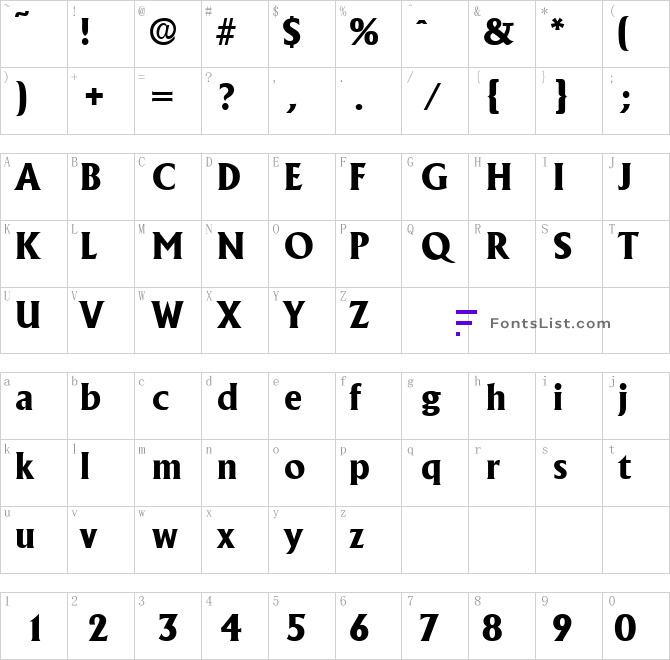
- Font Name:Adelon-Serial-ExtraBold
- Full Name:Adelon-Serial-ExtraBold-Regular
- Weight:900
Adelon-Serial-ExtraBold-Regular.ttf is a very beautiful artistic font, Adelon-Serial-ExtraBold-Regular.ttf is widely used in the design and printing of various books and pictures,Adelon-Serial-ExtraBold-Regular.ttf has a strong visual impact,Adelon-Serial-ExtraBold-Regular.ttf is a commonly used font in newspapers, magazines and books, and is used in posters, e-commerce Poster design, store design, logo design, font design and other fields.Adelon-Serial-ExtraBold-Regular.